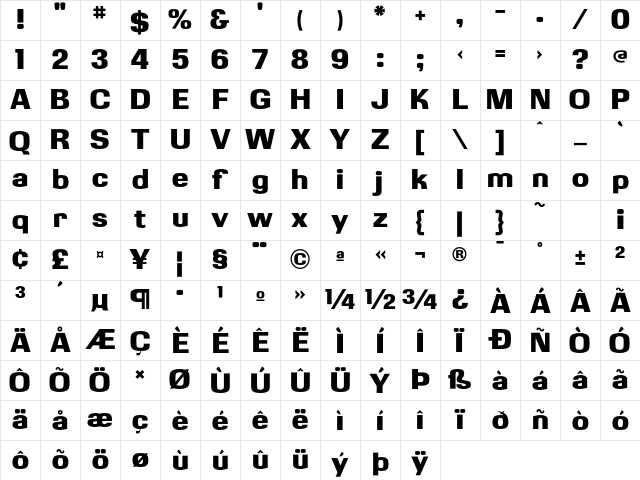
KasseUltraFLF Regular
Design Context for KasseUltraFLF
KasseUltraFLF is a composed and adaptable typeface that performs quietly and consistently across a wide range of design contexts.